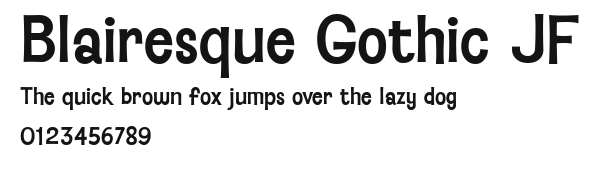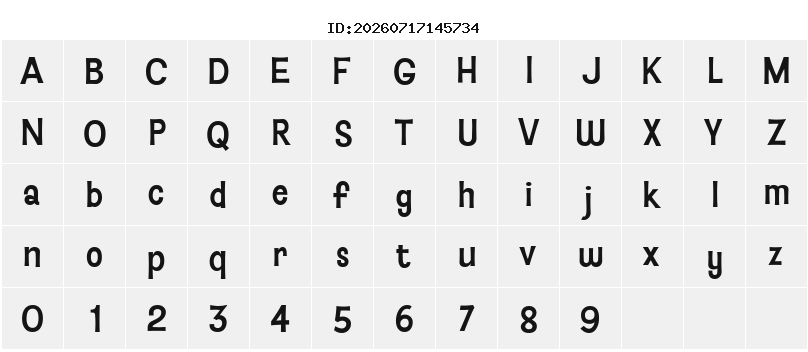
• Font Name: Blairesque Gothic JF
• Full Font Name: Blairesque Gothic JF
About Blairesque Gothic JF.ttf
Blairesque Gothic JF.ttf is a modern, elegant sans-serif font designed for ultimate readability and visual harmony. Perfect for branding, headlines, web design, and print materials.